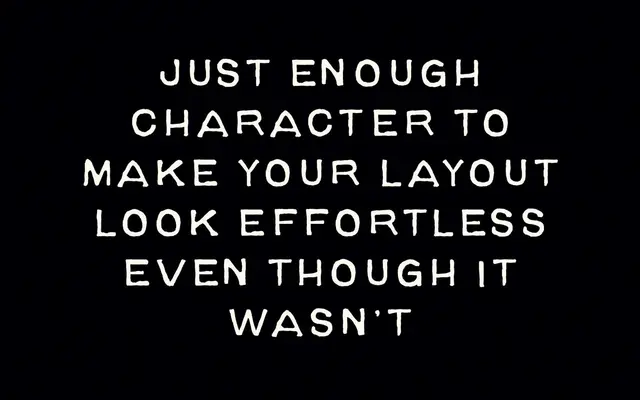
Misprint
Misprint specimen from Taylor Penton
A single-weight stamped display face with deliberately rough edges and uneven forms that evoke overworked print production.
The letterforms carry the texture of repeated passes through a press, with irregular edges and subtle inconsistencies built into each glyph. Supplied as a single Regular weight in OTF and webfont formats, it covers 206 glyphs with broad Western European language support including Icelandic and Welsh. Best suited to logotypes, packaging and short headline work where a worn, tactile quality is the point.
A single-weight stamped-style display face with intentionally rough, uneven letterforms simulating worn or over-printed production output, placing it firmly in the distressed display category.